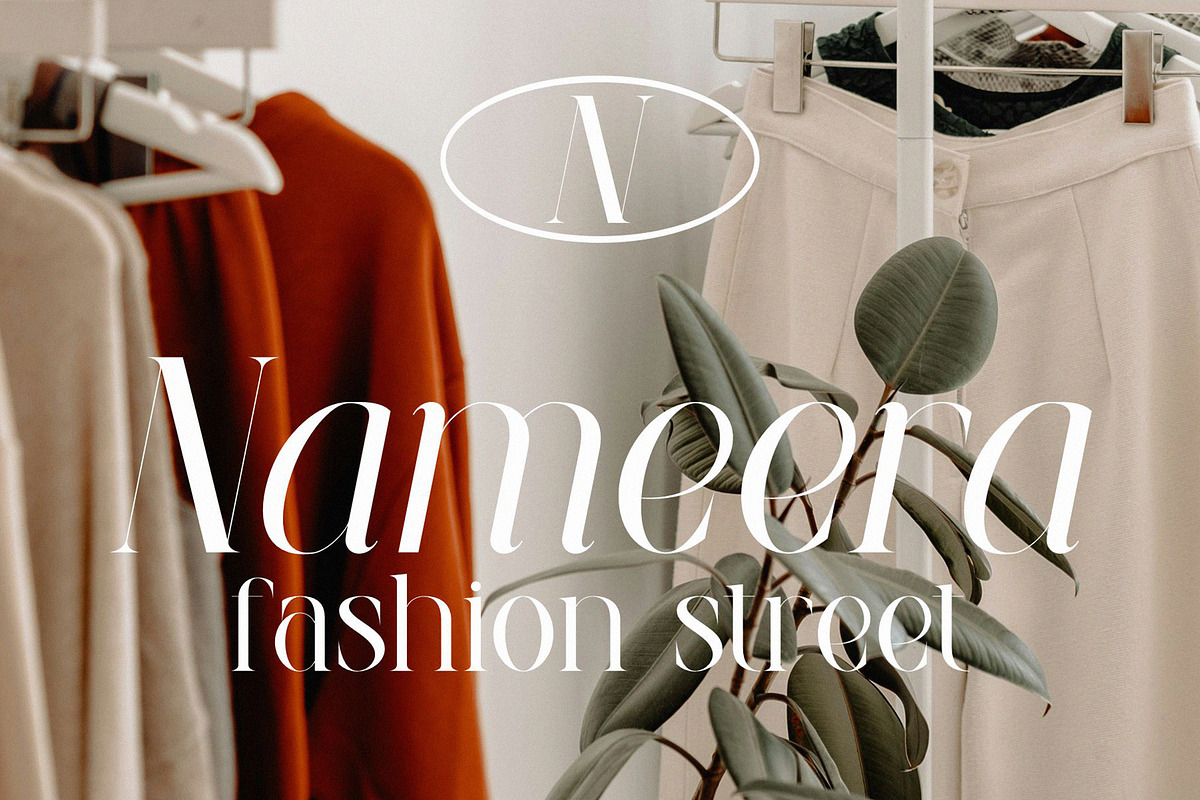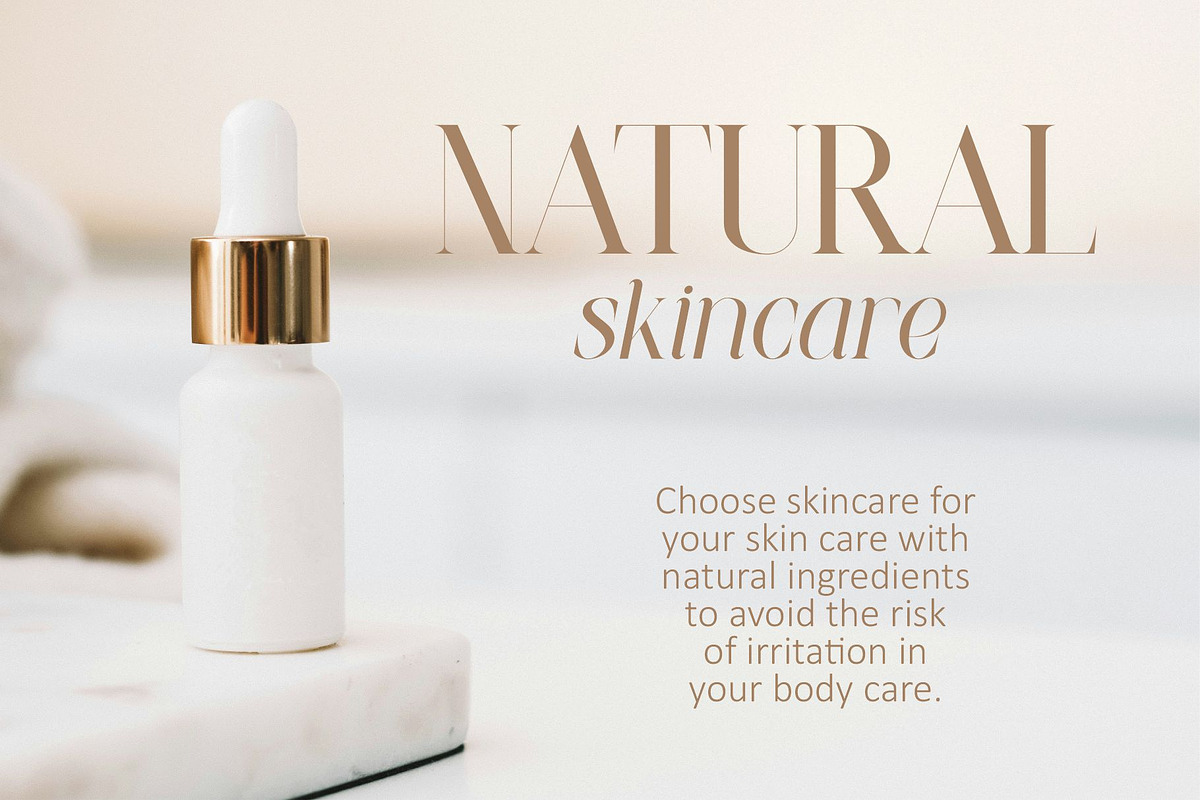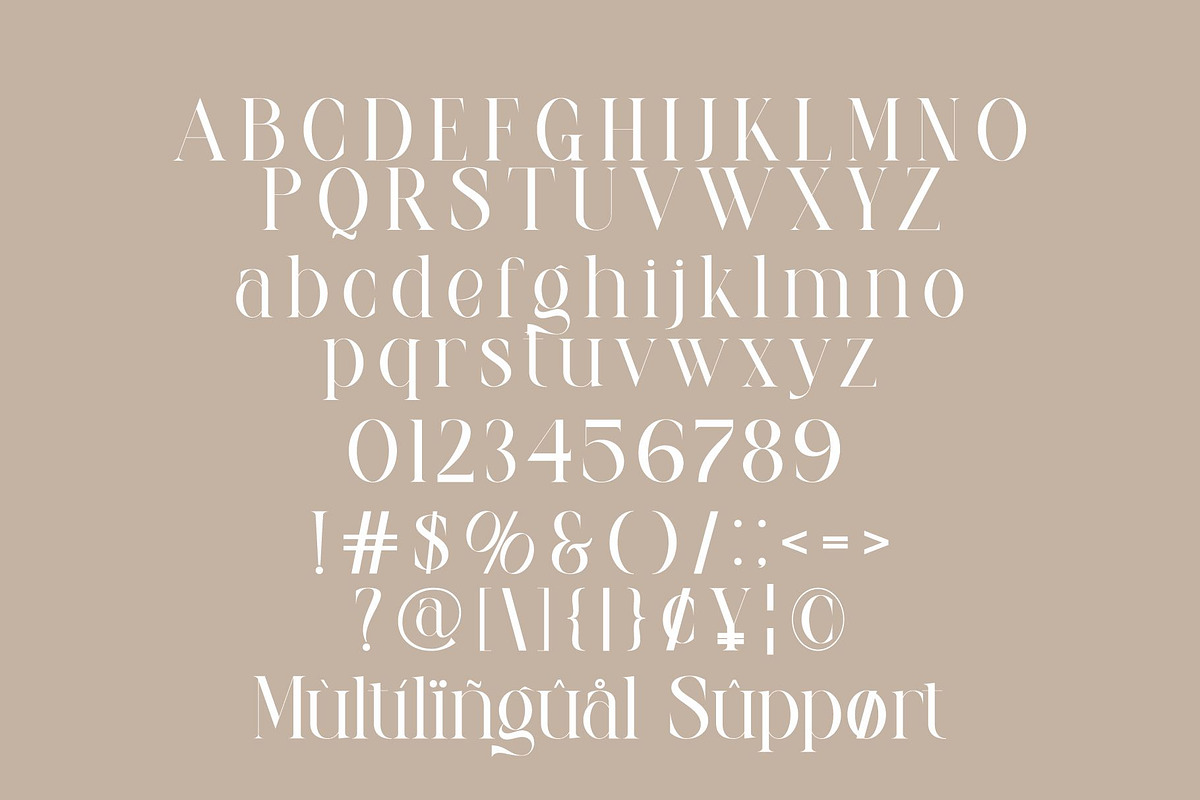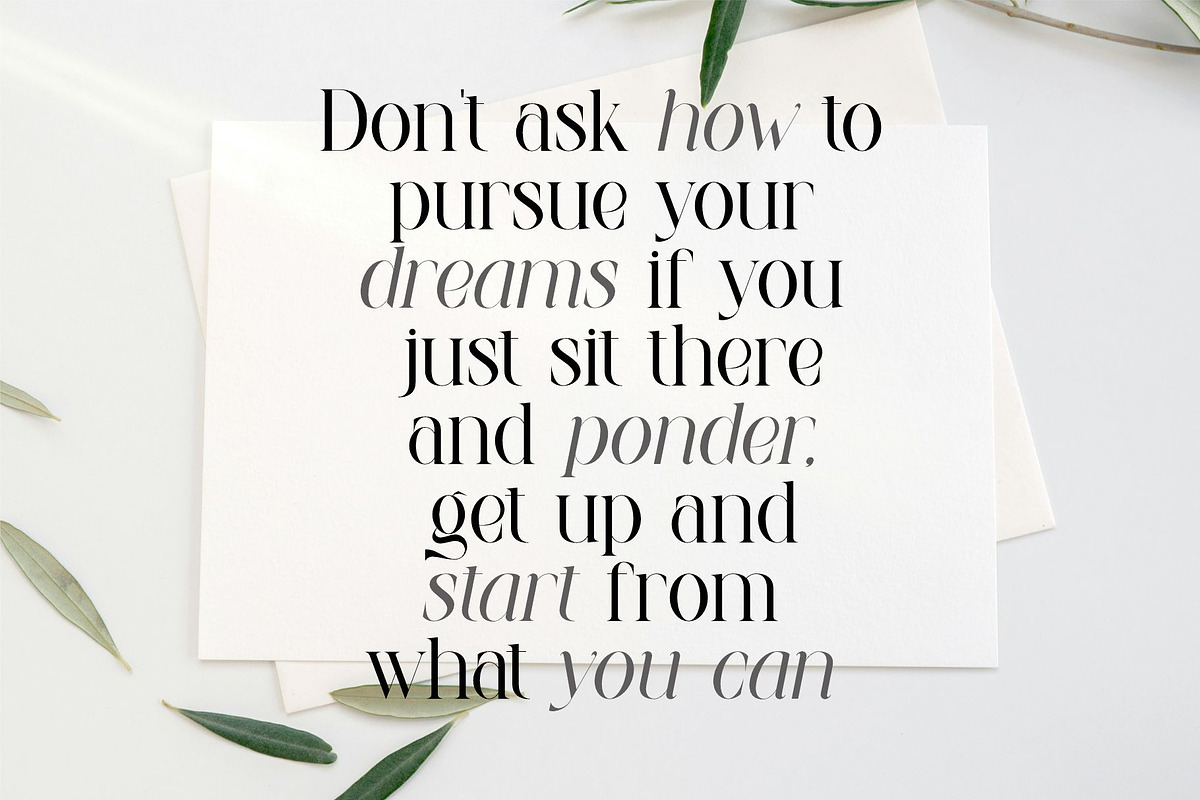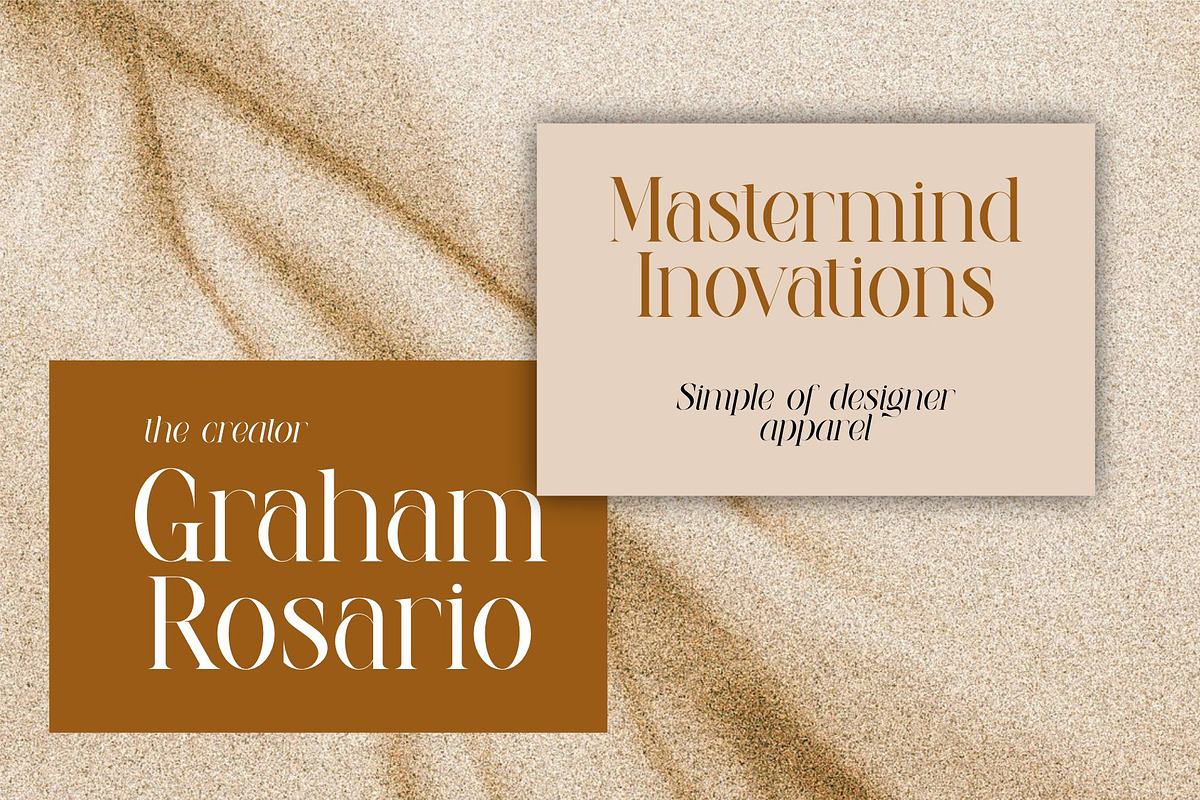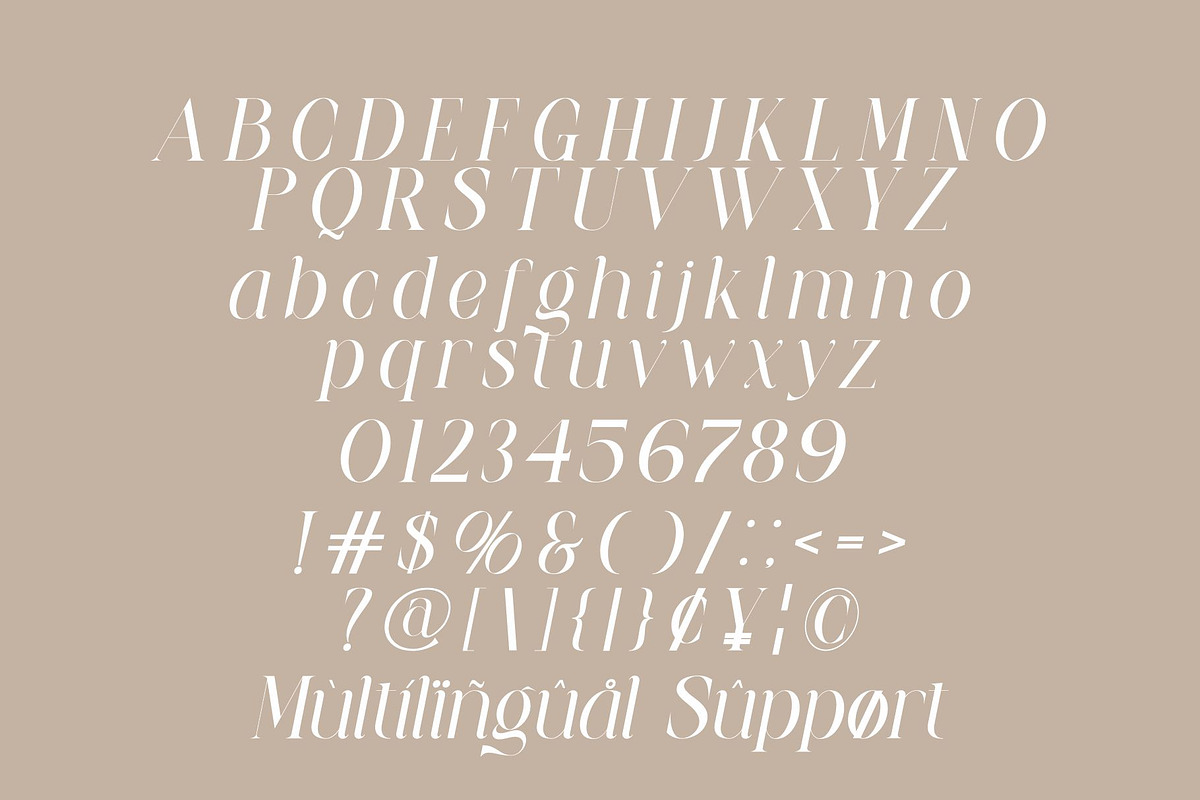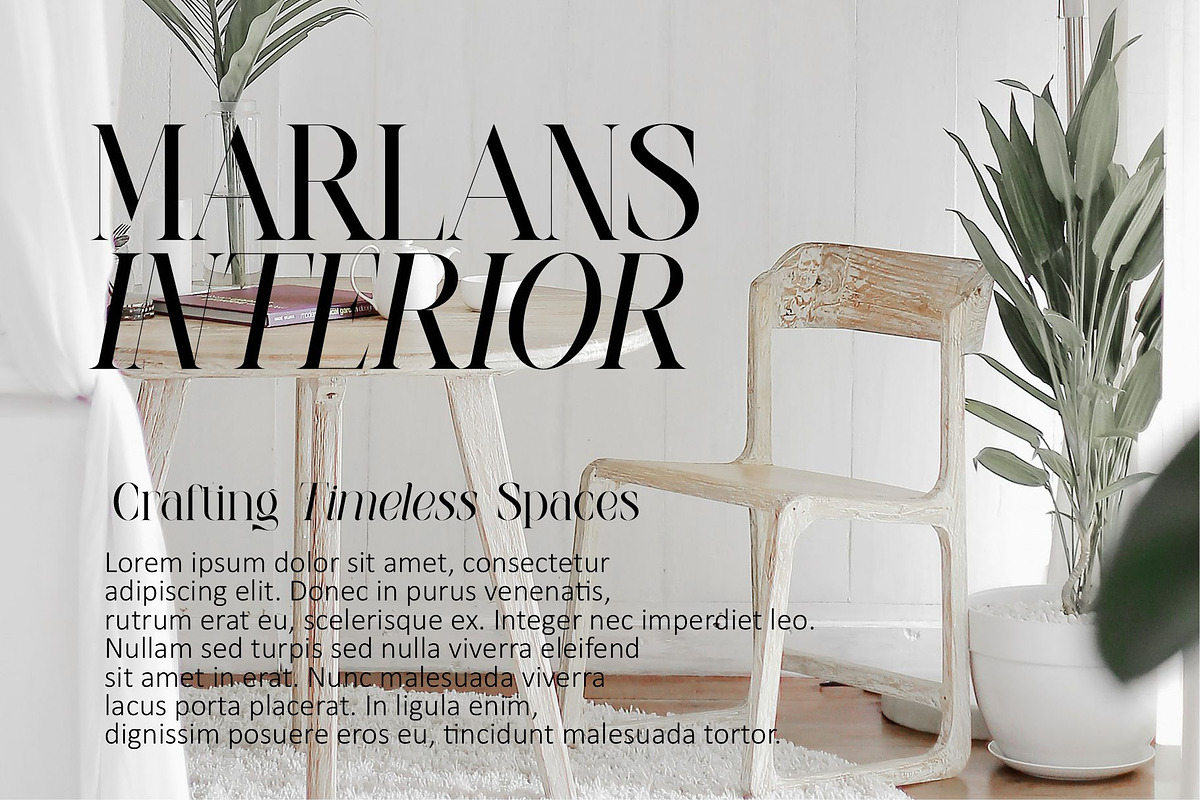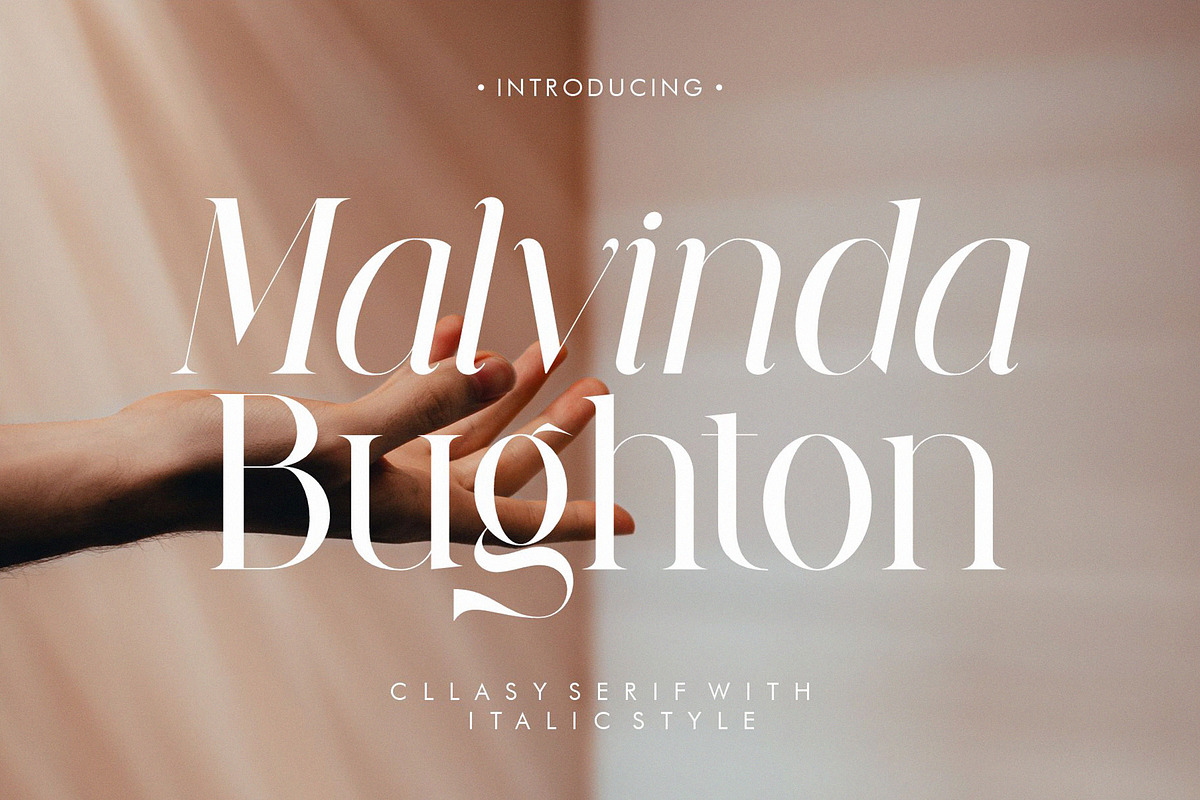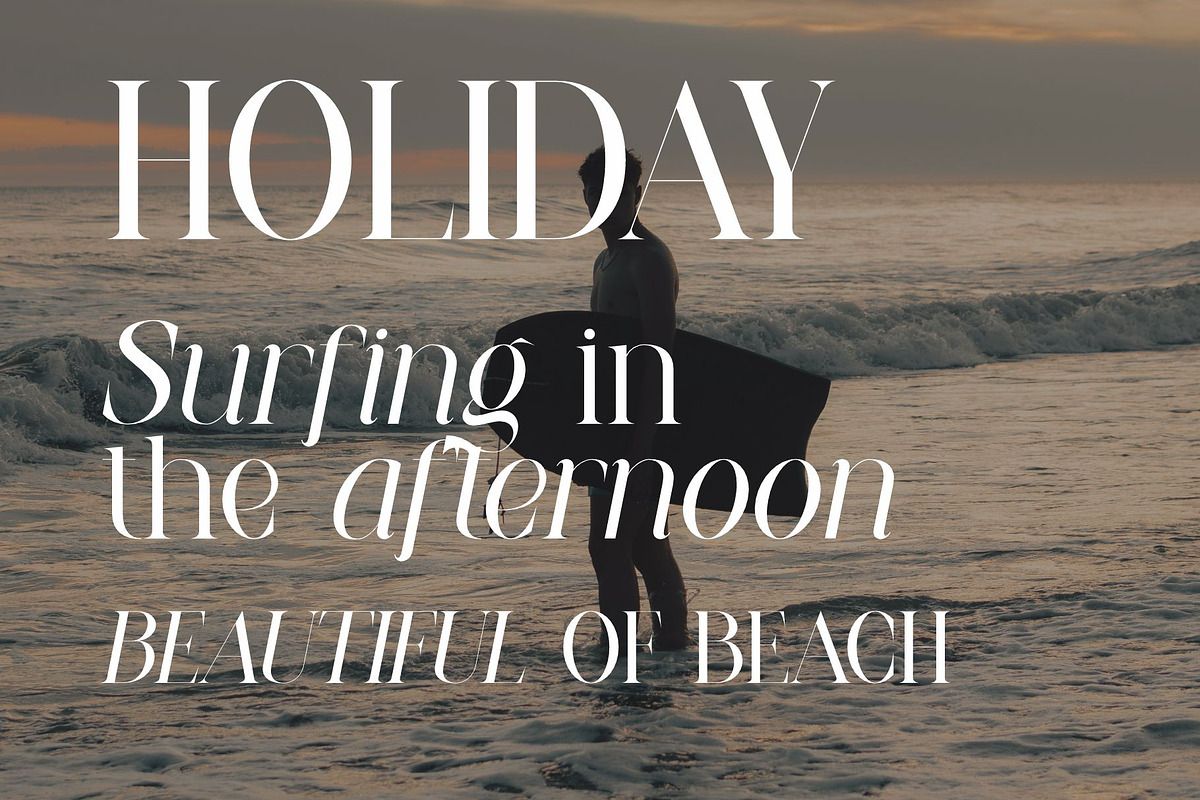
Malvinda Bughton Cllasy Serif With I
Malvinda Bughton Modern Serif Typeface inspired by the famous minimalist logo perfect for the purposes of designing templates, brochures, videos, advertising branding, logos, invitation, layout design, elegant crafting, beauty design and other